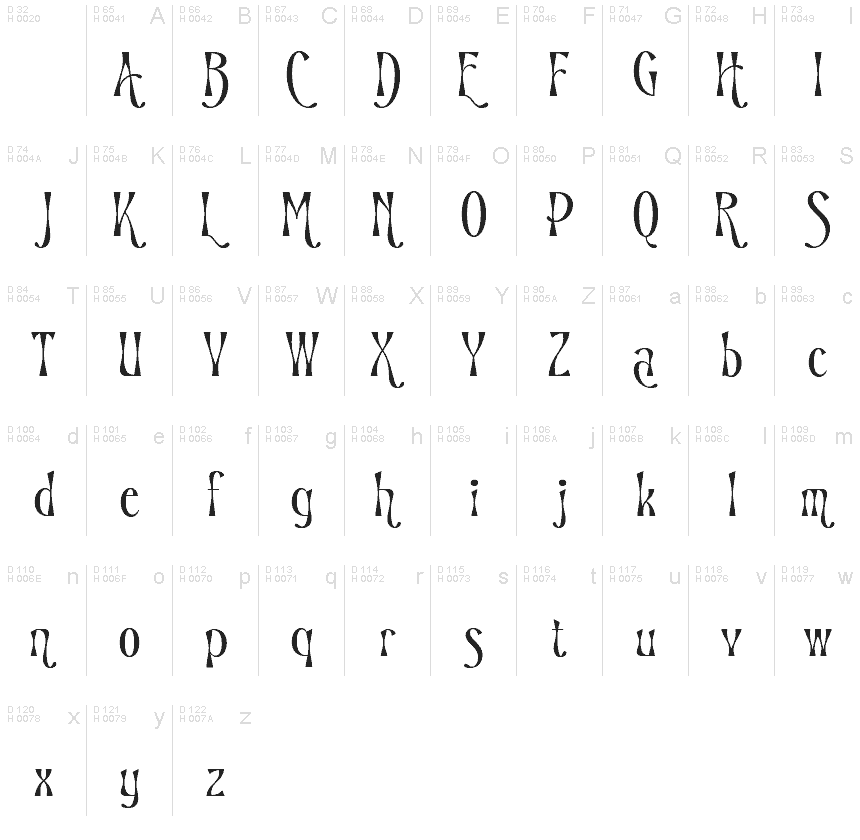
CS Lovisa Regular Demo
CS Lovisa font by Craft Supply Co. is a condensed display font with classic influence and high contrast. Elegant, artistic, and expressive describe how its ornamental elements come together to create an interesting design intended for diverse use. Slightly condensed fonts are distinguished due to the difficulty of designing them, making CS Lovisa even more special.
Use this stylish font from A to Z in your advertising and branding presentations or in product packaging projects where all eyes should be on the brand name. Posters are known for their vibrancy on which you’ll get to feature enchanting movie titles, author names, or exciting event themes using this free uppercase typeface.